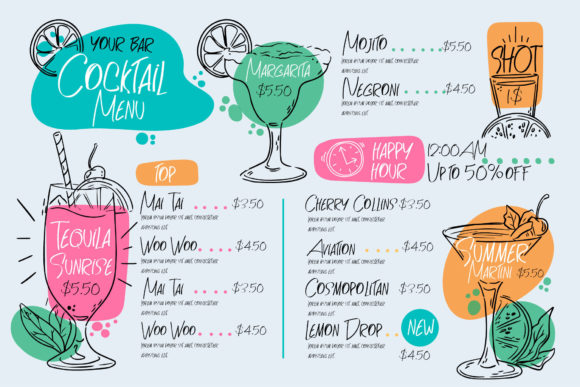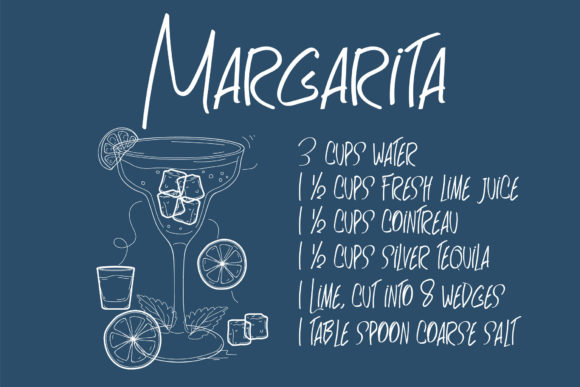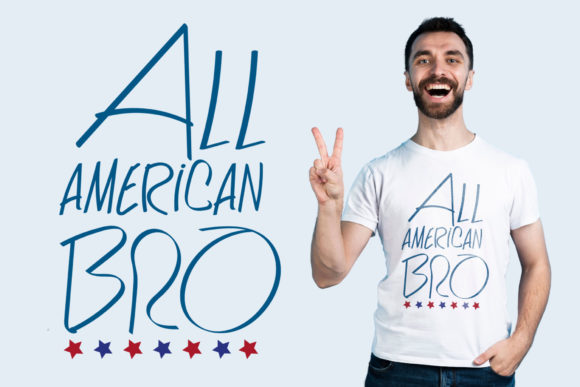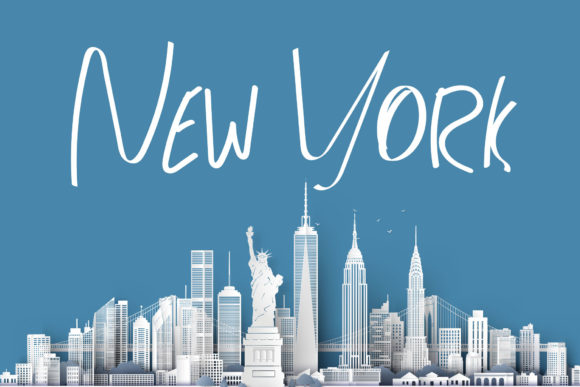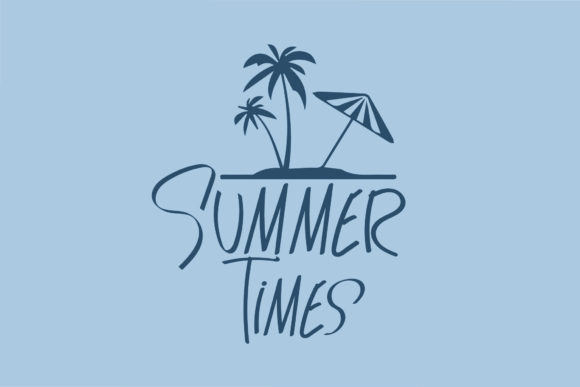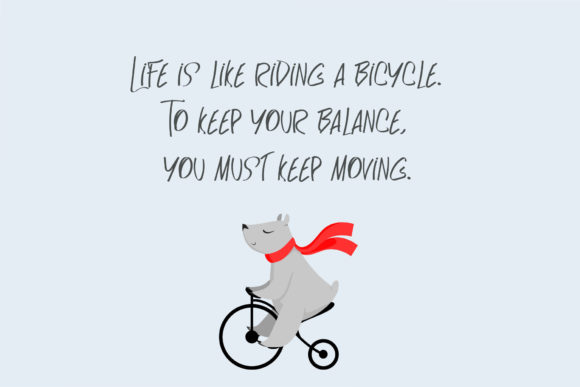
Cocktail Font: The Perfect Addition to Your Typography Collection
Are you a designer, crafty enthusiast, or simply a typography aficionado looking for a font that can elevate your creative projects? Look no further than the Cocktail Font! This friendly, neat, and informal script font is sure to become an incredible asset to your font library, capable of transforming any creation into a stunning masterpiece.
What is Cocktail Font?
Cocktail Font is a beautifully designed script font that exudes a sense of warmth and approachability. Its friendly and informal nature makes it perfect for a wide range of design projects, from wedding invitations and party decorations to branding materials and digital content. The font’s neat and clean lines ensure that it remains highly legible, even at smaller sizes.
Key Features of Cocktail Font
• Unique and Elegant Design: Cocktail Font boasts a distinctive and elegant design that sets it apart from other script fonts. Its flowing lines and carefully crafted letterforms create a sense of sophistication and refinement.
• Highly Legible: The font’s clean and simple design ensures that it remains highly legible, even at smaller sizes. This makes it perfect for use in body text, headings, and titles.
• Informal and Friendly: Cocktail Font has an informal and friendly feel that makes it perfect for use in creative projects that require a personal touch.
• Versatile: This font is incredibly versatile and can be used in a wide range of design projects, from print materials to digital content.
Why Choose Cocktail Font?
There are many reasons why Cocktail Font is an excellent choice for designers and crafty enthusiasts. Here are just a few:
• Adds a Personal Touch: Cocktail Font’s friendly and informal nature makes it perfect for adding a personal touch to your design projects.
• Elevates Your Creations: This font has the potential to elevate any creation, transforming it into a stunning masterpiece that captures the attention of your audience.
• Easy to Read: Cocktail Font’s high legibility makes it easy to read, even for extended periods.
• Supports Multiple Languages: This font supports multiple languages, making it a great choice for designers who work with international clients.
How to Use Cocktail Font
Cocktail Font is incredibly easy to use and can be incorporated into a wide range of design projects. Here are a few ideas to get you started:
• Wedding Invitations: Use Cocktail Font to create beautiful and elegant wedding invitations that set the tone for the big day.
• Branding Materials: This font is perfect for use in branding materials, such as logos, business cards, and letterheads.
• Digital Content: Cocktail Font can be used to create stunning digital content, including social media graphics, blog posts, and email newsletters.
• Crafting Projects: This font is also perfect for use in crafting projects, such as scrapbooking, card making, and DIY decorations.
In conclusion, Cocktail Font is an exceptional addition to any typography collection. Its unique and elegant design, high legibility, and informal and friendly nature make it perfect for a wide range of design projects. Whether you’re a designer, crafty enthusiast, or simply a typography aficionado, Cocktail Font is sure to become a favorite font in your library.